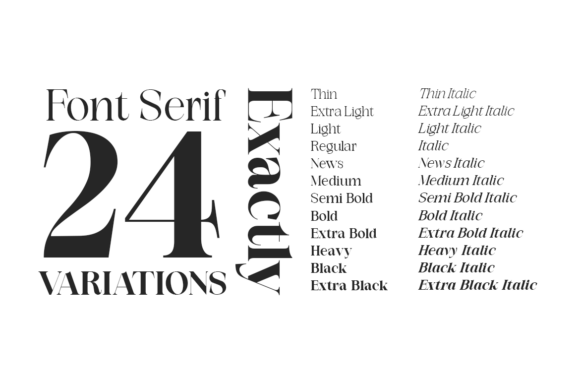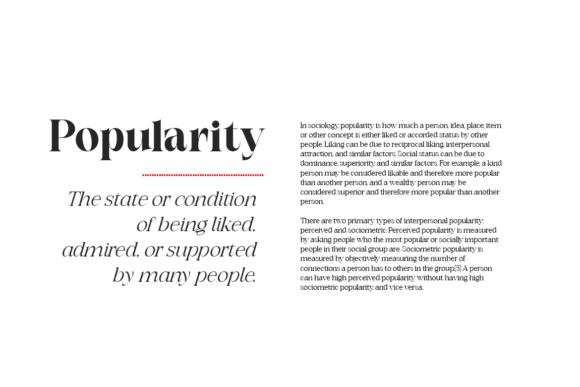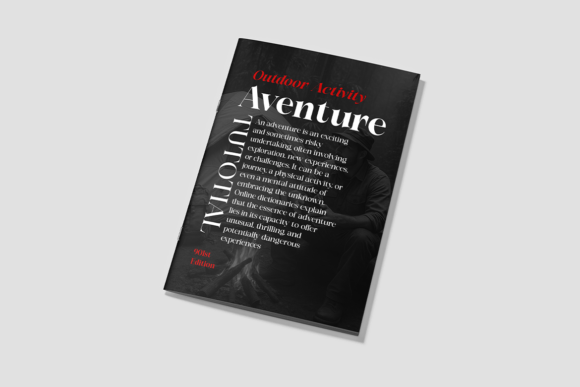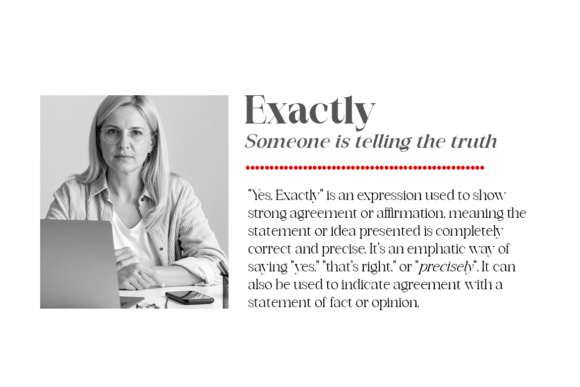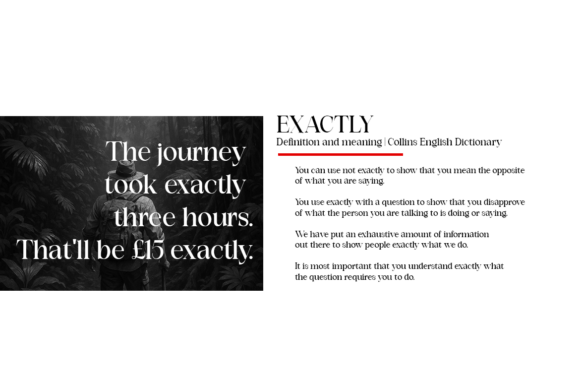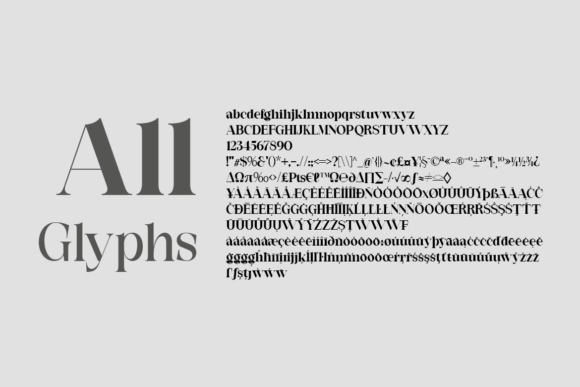
Discover the Elegance of Exactly Font: A Perfect Balance of Familiarity and Uniqueness
In the world of typography, finding the perfect font that strikes a balance between familiarity and uniqueness can be a daunting task. However, Exactly Font has emerged as a game-changer, offering designers a bold and expressive serif family font that is both elegant and versatile. With its perfect blend of vintage charm and contemporary design, Exactly Font has become a go-to choice for top fashion magazines, publications, and designers worldwide.
The Characteristics of Exactly Font
Exactly Font boasts a distinctive character that sets it apart from other fonts. Its bold and expressive serif design makes it perfect for creating elegant design work, from logos and magazines to films and posters. The font’s vintage charm is balanced with a modern twist, making it an excellent choice for designers looking to create sophisticated and eye-catching designs.
One of the standout features of Exactly Font is its range of thicknesses, which allows designers to experiment with various applications and uses. Whether you’re looking to create a bold headline or a subtle caption, Exactly Font has got you covered. The font’s versatility is further enhanced by its readability, making it perfect for use in paragraphs, articles, and other written content.
Uses of Exactly Font
Exactly Font is an incredibly versatile font that can be used in a wide range of design applications. Some of the most popular uses of Exactly Font include:
- Branding: Exactly Font is perfect for creating logos, brand identities, and other marketing materials that require a bold and elegant look.
- Headlines: The font’s bold and expressive design makes it ideal for use in headlines, titles, and other attention-grabbing applications.
- Magazines and Publications: Exactly Font is a popular choice for fashion magazines, publications, and other print media, where its vintage charm and sophistication can be fully appreciated.
- Films and Posters: The font’s cinematic feel makes it perfect for use in film titles, posters, and other promotional materials.
- Captions and Paragraphs: Exactly Font’s readability and elegance make it an excellent choice for use in captions, paragraphs, and other written content.
Benefits of Using Exactly Font
So, why choose Exactly Font for your design needs? Here are just a few benefits of using this exceptional font:
- Elegance and Sophistication: Exactly Font adds a touch of elegance and sophistication to any design, making it perfect for high-end brands and luxury products.
- Versatility: The font’s range of thicknesses and versatility make it suitable for use in a wide range of design applications.
- Readability: Exactly Font is designed to be highly readable, making it perfect for use in written content, such as articles, paragraphs, and captions.
- Uniqueness: Exactly Font’s distinctive character sets it apart from other fonts, making it an excellent choice for designers looking to create unique and eye-catching designs.
| Font Name | Exactly Font |
| Author | Artisans |